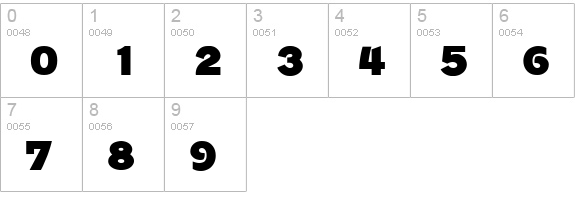
AdvertisersGothic-Regular is the standard, neutral variant in the AdvertisersGothic typeface family \xE2\x80\x94 well suited to general body text, paragraphs, and standard typographic work.
AdverstisersGothic-Regular font is a sleek and modern typeface that exudes professionalism and sophistication. With its clean lines and bold presence, this font is perfect for creating eye-catching advertisements, banners, and marketing materials. The versatility of AdvertisersGothic-Regular allows it to be used in a variety of design projects, from print to digital. Best of all, AdvertisersGothic-Regular is available for free download at FontsMarket.com. Whether you're a seasoned designer looking to add a new font to your collection or a beginner seeking high-quality typography for your projects, AdvertisersGothic-Regular is an excellent choice. Download it now and elevate your designs with this stylish and impactful font.